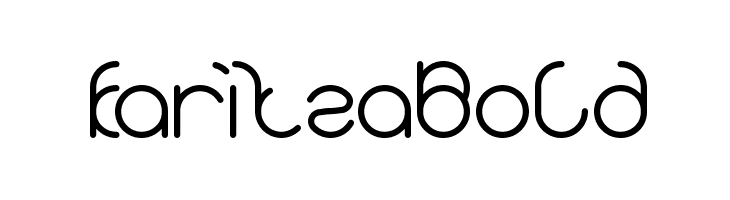
A modern, rounded font with smooth, continuous lines and a playful aesthetic.
A modern, minimalist font with geometric, continuous lines and rounded edges.